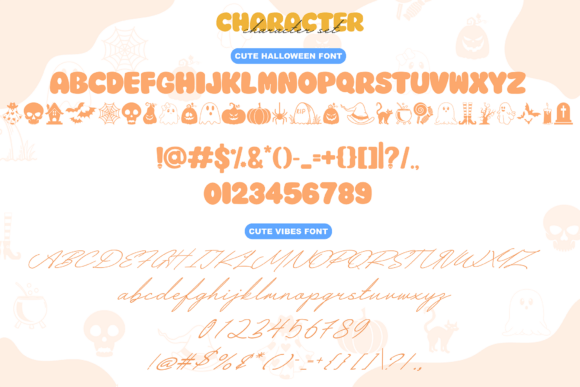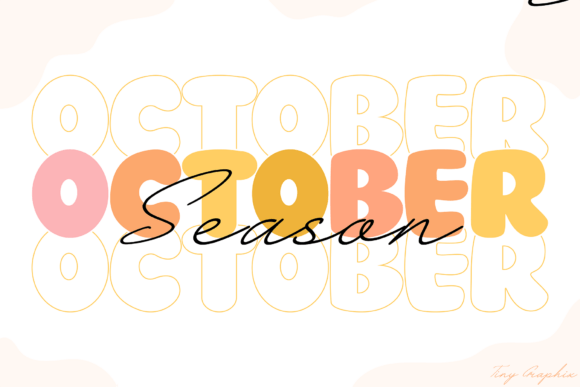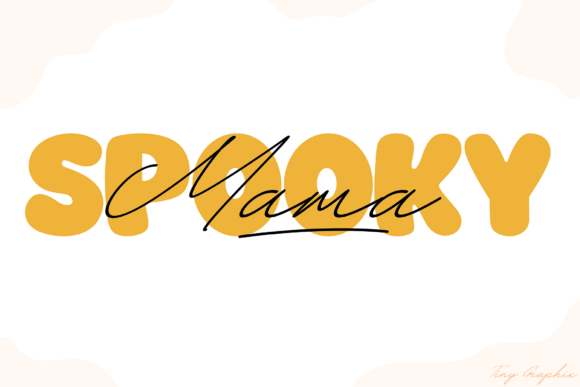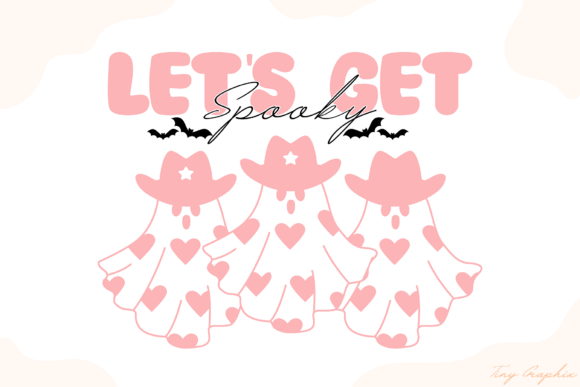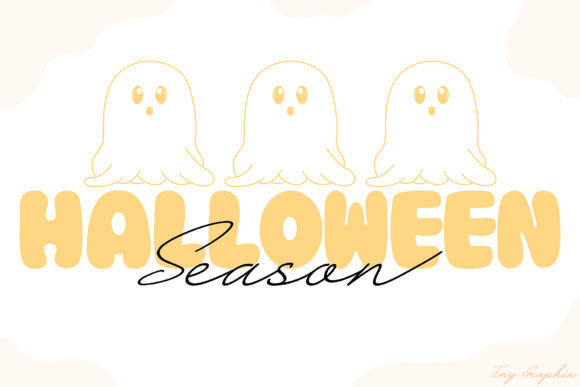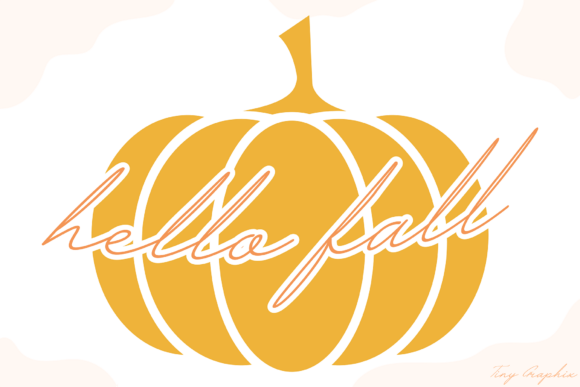
Introduction to Cute Vibes Font
๐โจ Cute Vibes โ A Charming Halloween Font Duo.
โจ๐ Bring a spellbinding mix of sweetness and spookiness to your designs with Cute Vibes , a playful and heartwarming font duo made just for Halloween lovers Whatโs Inside: ๐งก Cute Halloween Font (TTF | OTF) โ A bold and bubbly display font featuring uppercase letters, numbers, punctuation, and adorable Halloween doodles like ghosts, pumpkins, bats, and spiders.
Key Features of Cute Vibes Font